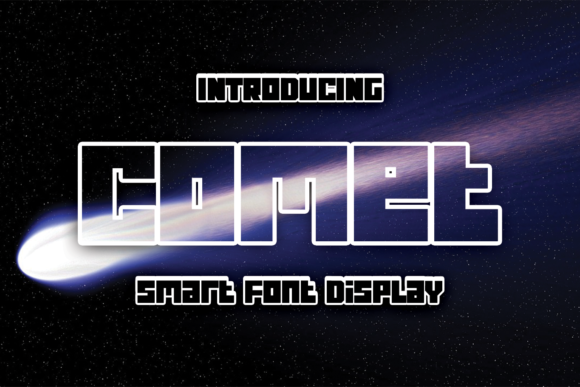
Unleash the Power of Bold Typography
Have you ever been stuck in a creative rut, staring at a blank page or screen, waiting for inspiration to strike? It’s a feeling we’ve all been through, but sometimes all it takes is the right tool to spark a new idea. For designers, the perfect font can be just the thing to take a project from bland to grand. That’s where Comet Font comes in – a bold and thick lettered display font that’s guaranteed to make a statement.
Whether you’re creating a poster, flyer, or print, Comet Font is the perfect choice. Its versatility and impact make it a valuable addition to any designer’s toolkit. With Comet Font, the possibilities are endless – from eye-catching headlines to bold typography, this font is sure to elevate your designs to the next level.
Comet Font Key Features
- Font Family: Comet Font is a modern sans-serif font family designed for digital use, available in 6 weights (Light, Regular, Medium, Bold, Heavy, Black).
- Character Set: The font family includes over 250 characters, including Latin, Cyrillic, and Greek alphabets, as well as a range of punctuation and special characters.
- Unique Characteristics: The font features a unique blend of geometric and organic shapes, giving it a distinctive and modern look that is both legible and visually appealing.
Comet Font Review
Overall, I found the Comet Font to be a visually striking choice for digital projects. ✨ The font’s unique blend of modern and futuristic elements makes it well-suited for science fiction, technology, and other futuristic themes.
The Comet Font has several strengths:
- ✨ Unique aesthetic that sets it apart from more traditional fonts
- ✨ Highly legible, even at smaller font sizes
- ✨ Supports a wide range of languages, including Cyrillic and Greek
However, I did encounter a few limitations:
- ⚠️ Limited character set, which may make it difficult to use for complex or technical text
- ⚠️ May not be suitable for body text due to its futuristic feel, which can be overwhelming at larger font sizes
- ⚠️ Some characters may not render correctly in certain browsers or operating systems
Overall, I would recommend the Comet Font for projects where a bold, futuristic aesthetic is required. However, it may not be the best choice for projects that require a more traditional or legible font.